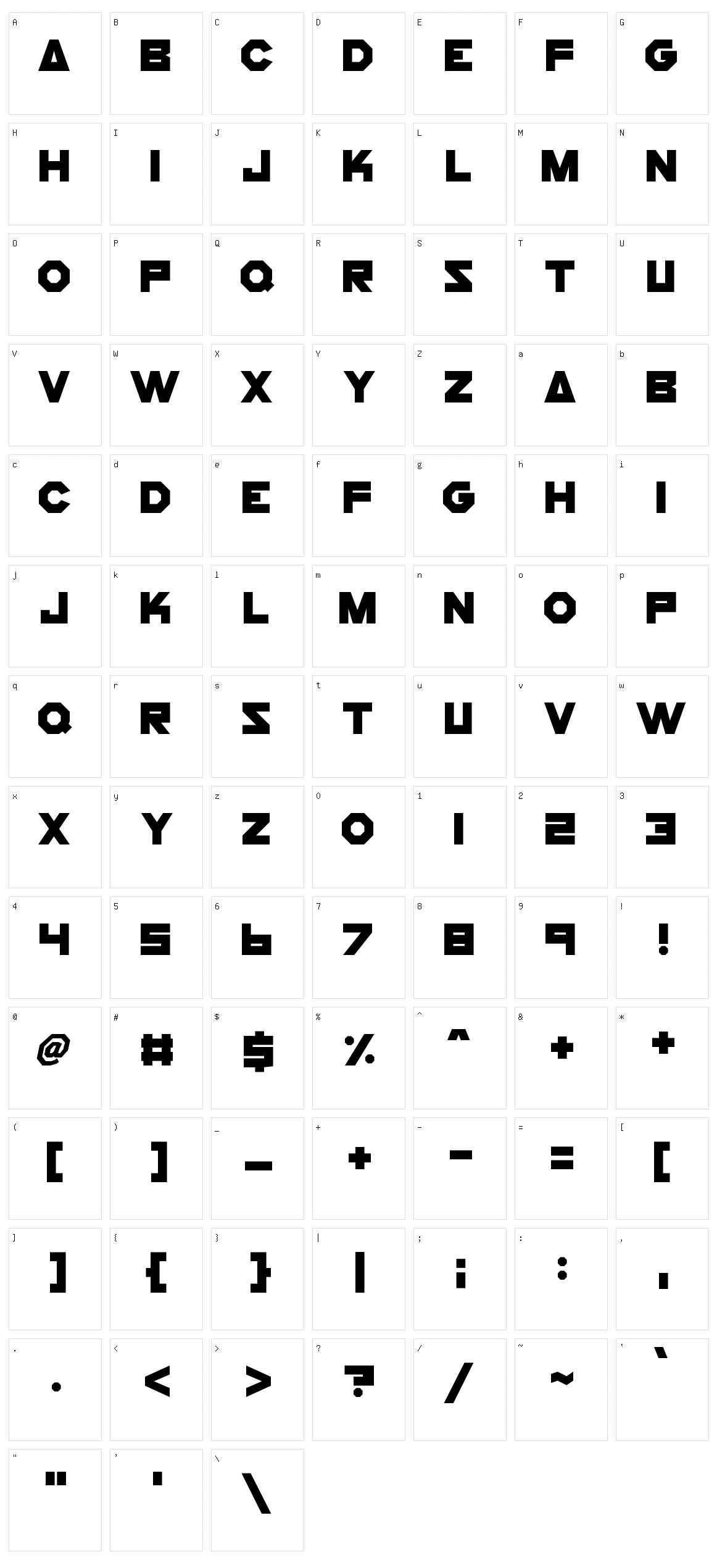
The free font Cogs And Bolts is carefully designed by Hawtpixel, showcasing a thoughtful balance of creativity and usability and falls under the Square font style. When you download the ZIP file, it contains only 39.74 KB of font files, making it lightweight and quick to download. Please review the license details below to understand permitted usage and distribution rights. If license information is not available, we recommend using this font for personal projects only or contacting the author directly for commercial usage permissions.